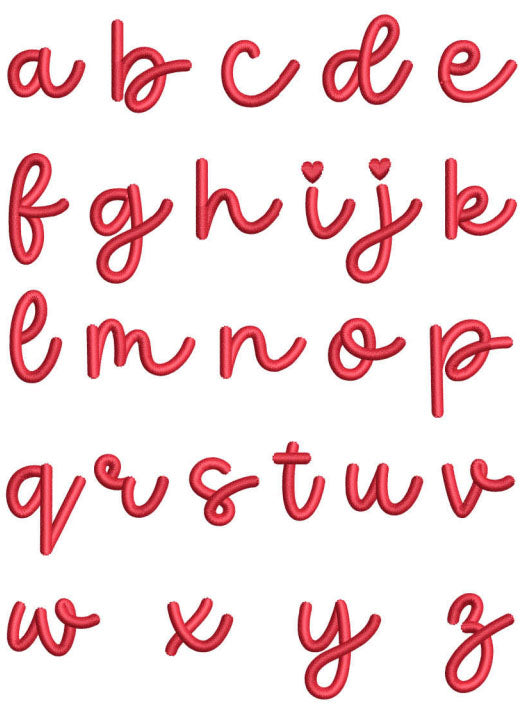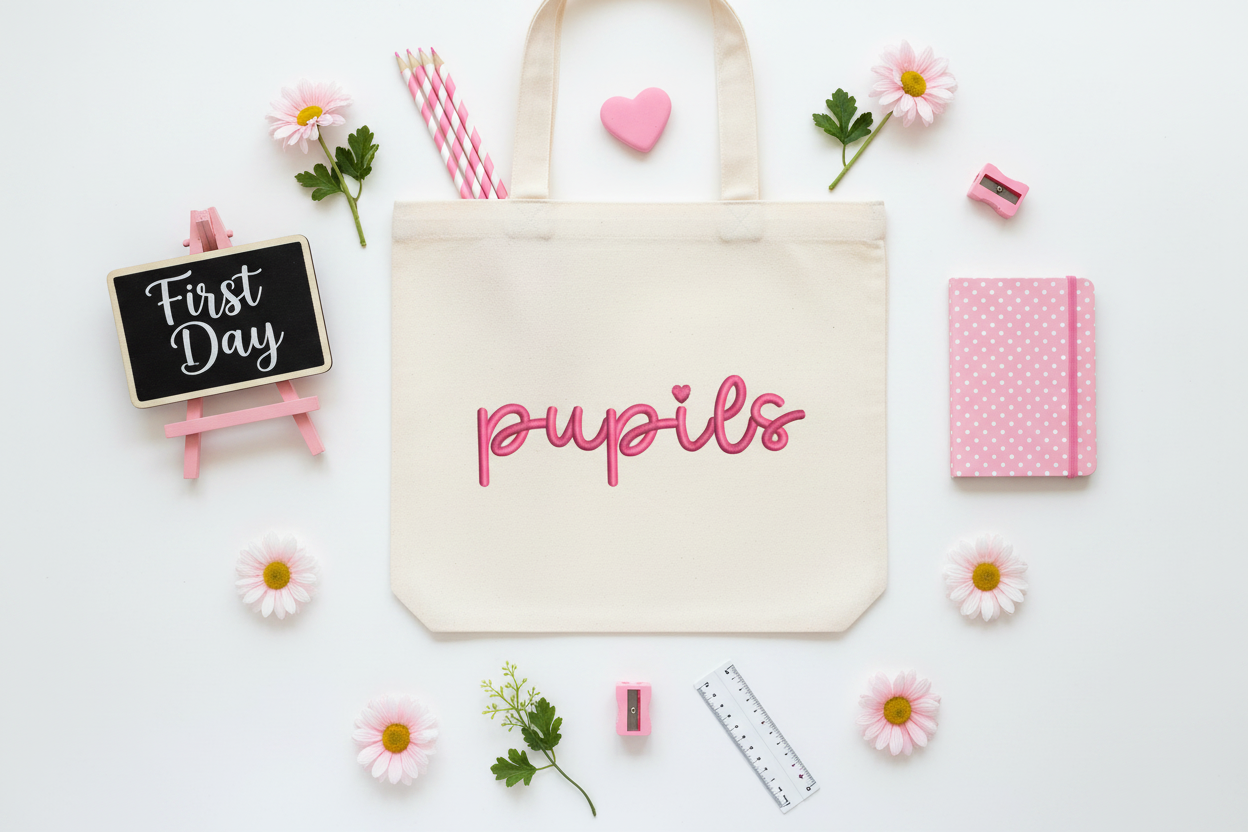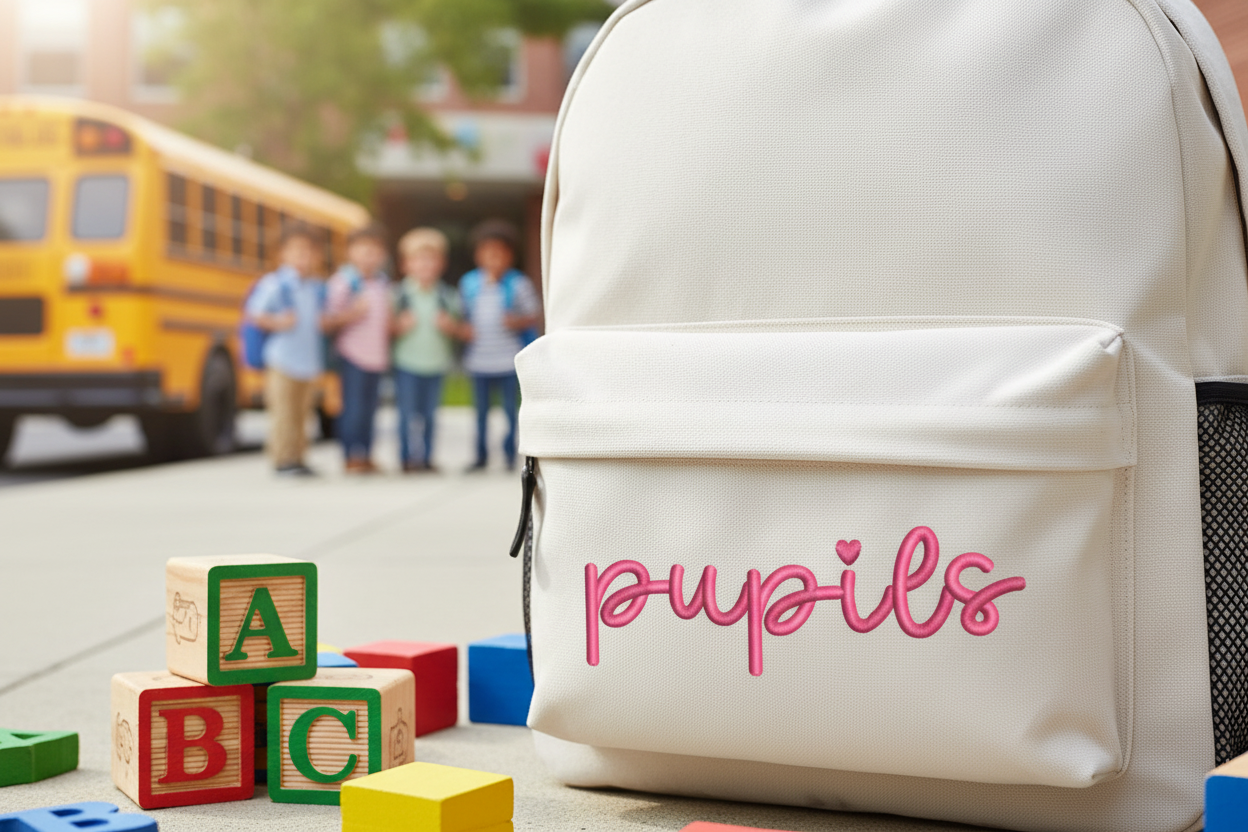
Pupils Embroidery Font - Back to School Script Font 1" 2" 3". BX included
Sweet and charming, the Pupils Embroidery Font features a beautiful script lettering with a tiny heart accent — perfect for back to school items, kids apparel, teacher gifts, tote bags, and personalized accessories.